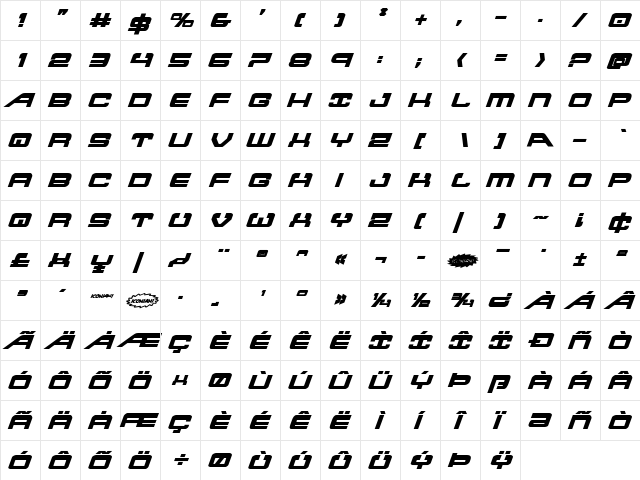
Atlantia Bold Italic Bold Italic
Bold Italic ·  Daniel Zadorozny ·
DesignerDaniel Zadorozny
Design Context for Atlantia Bold Italic Typeface
Atlantia Bold Italic offers clean, dependable letterforms without strong stylistic allegiance, making it a practical choice for designers who need flexibility. Its italic angle brings a sense of urgency and motion to the letterforms. The heavy weight commands attention and anchors typographic hierarchies.
Pro Tip: Try Atlantia Bold Italic for annotation and caption copy alongside an upright companion — the contrast in angle creates a dynamic but ordered typographic system.